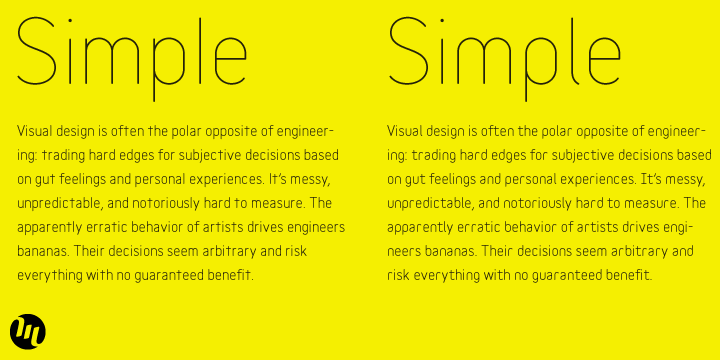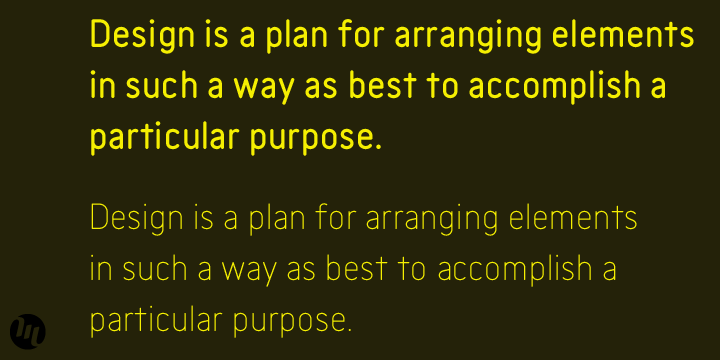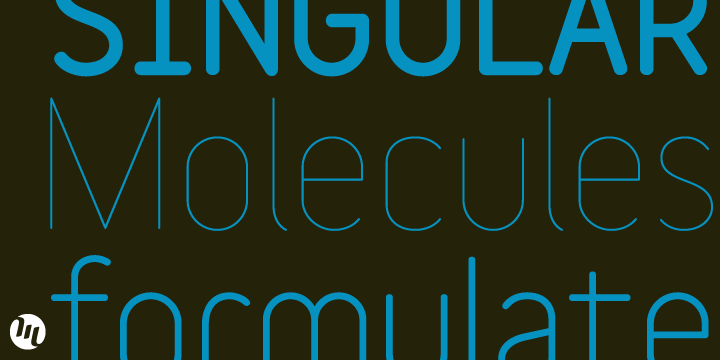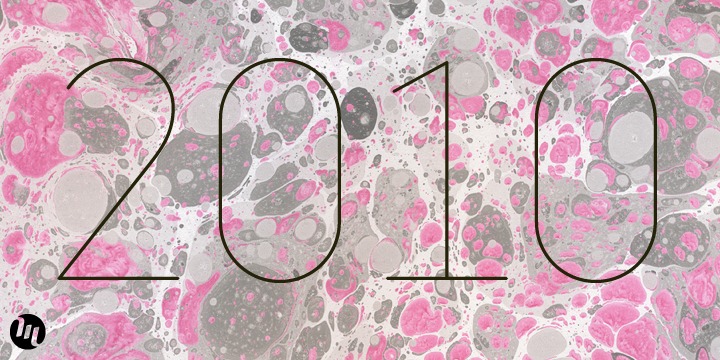
Variable font family
Variable is a sans-serif monoline typeface family that can be used in a variety of typographic environments.
The UltraThin weight is perfect for use at large sizes in magazines or anywhere a hairline effect is needed. The Black weight feels reminiscent of wooden router lettering.
Variable is very versatile due to its calming curves and can be used in print or on-screen environments.